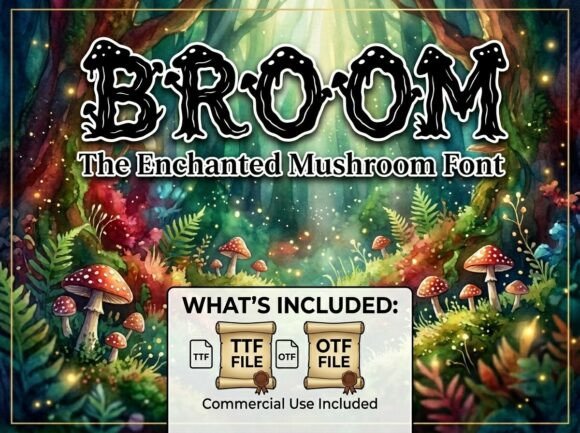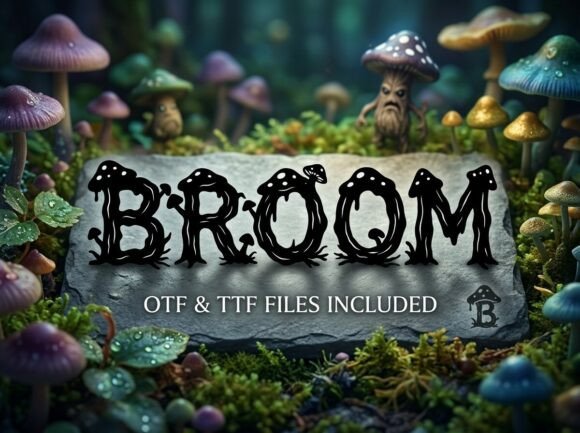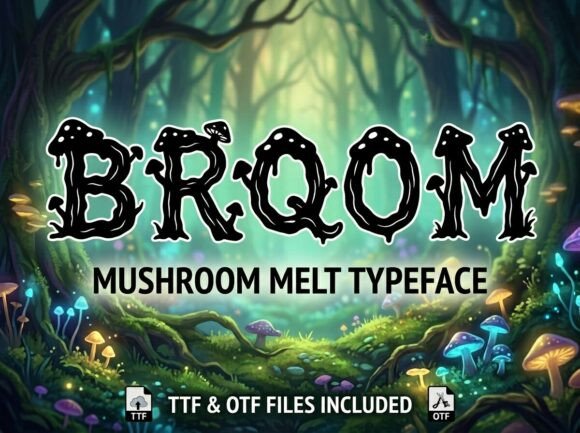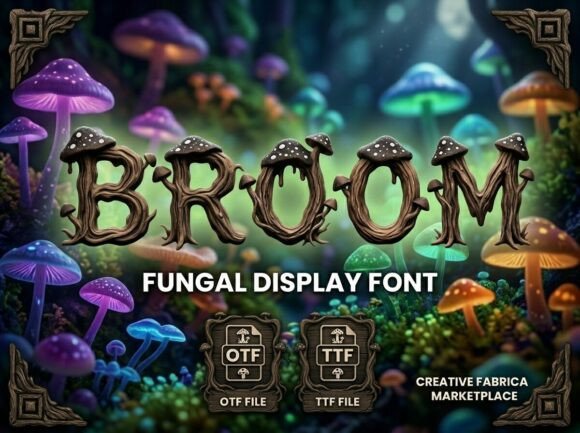
Discover the Enchanting World of Broom Font
Step into a realm of enchantment with Broom, an organic display typeface that captures a “mythical-and-mycelial” soul. This extraordinary font is designed to transport you to a world of fantasy and magic, where mythical creatures roam free and the boundaries between reality and fairy tales blur. In this article, we’ll explore the unique features of Broom Font and how it can elevate your design projects to new heights.
The Inspiration Behind Broom Font
Broom Font is the brainchild of a creative designer who sought to bridge the gap between fairy-tale illustration and modern fantasy branding. The result is a font that seamlessly blends traditional and digital elements, creating a unique and captivating visual experience. The font’s 3D letterforms are constructed from rhythmic, hand-drawn “twisted wood” and “mushroom cap” textures, which evoke a sense of organic, earthy magic.
Key Features of Broom Font
- Organic Display Typeface: Broom Font is an organic display typeface that boasts a unique, hand-crafted aesthetic. Its irregular shapes and natural textures give it a distinctly mythical and mystical feel.
- 3D Letterforms: The font’s 3D letterforms are carefully crafted to create a sense of depth and dimensionality. This feature makes Broom Font perfect for attention-grabbing headlines, logos, and titles.
- Twisted Wood and Mushroom Cap Textures: The font’s textures are inspired by the natural world, with “twisted wood” and “mushroom cap” patterns that add an extra layer of visual interest and enchantment.
- Heavy Structural Weight: Broom Font has a sturdy, robust quality that makes it perfect for use in a variety of design applications, from book covers to social media headers.
Design Applications for Broom Font
Broom Font is an incredibly versatile typeface that can be used in a wide range of design projects. Here are some ideas to get you started:
- Independent Tabletop Gaming Identities: Create immersive gaming experiences with Broom Font’s unique, mythical aesthetic.
- Boutique Mystical Shop Logos: Help your customers tap into the mystical and mysterious with a logo that showcases the magic of Broom Font.
- Woodland-Themed Book Covers: Transport readers to an enchanted world with Broom Font’s earthy, organic feel.
- High-Impact Social Media Headers: Make a statement on social media with Broom Font’s bold, attention-grabbing style.
Why Choose Broom Font?
In a world of digital design, it’s easy to get lost in a sea of sameness. Broom Font offers a refreshing alternative, with its unique blend of organic and mythical elements. Here are just a few reasons why Broom Font stands out:
- Magical Personality: Broom Font has a personality that’s equal parts whimsical and enchanting.
- Flexibility: The font’s versatility makes it perfect for use in a wide range of design applications.
- Attention-Grabbing: Broom Font’s bold, 3D letterforms are designed to grab attention and make a lasting impression.
Broom Font is a game-changer for designers and crafters looking to add a touch of magic to their projects. With its unique blend of organic and mythical elements, this font is sure to captivate audiences and leave a lasting impression. Whether you’re creating independent tabletop gaming identities, boutique mystical shop logos, or woodland-themed book covers, Broom Font is the perfect choice. So why wait? Step into the enchanting world of Broom Font today and discover the magic for yourself!